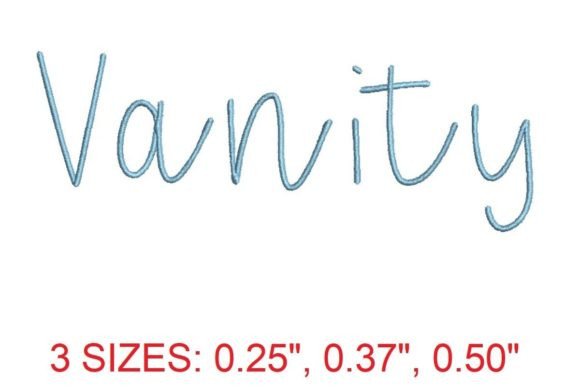
Vanity Embroidery Font Review
As an embroidery designer and product reviewer, I’ve evaluated countless machine embroidery designs over the years. When I came across the Vanity Embroidery Font, I was intrigued by its promise of elegance and allure. This font is designed for those who want to elevate their stitching projects with a touch of sophistication. But does it deliver in real-world use? Let’s dive into my hands-on evaluation.
The First Impression: Elegance Meets Allure
From the moment I opened the embroidery file, I noticed the refined structure of the Vanity Embroidery Font. The lettering has a smooth, flowing aesthetic that feels both modern and timeless. It’s not overly ornate, but it carries a subtle glamour that makes it stand out. The design seems to be tailored for projects where visual impact matters—think personalized gifts, boutique merchandise, or high-end handmade products.
The layout is clean, with balanced spacing between letters and a consistent stroke width. This makes it ideal for applications where clarity and readability are key. Whether you’re working on a sweatshirt embroidery or a tote bag design, the font maintains its character without looking cluttered.
Real-World Use: Where Does It Shine?
I tested the Vanity Embroidery Font on several projects to see how it performed in different contexts. On a custom apparel like a cotton t-shirt, it looked sharp and professional. The satin stitch detail added a polished finish, making the text appear as if it were part of the garment itself. For a personalized gift, such as a baby onesie or a holiday ornament, the font brought a sense of class that would appeal to discerning customers.
One project I worked on was a custom embroidered patch for a small business client. The Vanity Embroidery Font fit perfectly on the patch, giving it a premium look that matched the brand’s image. It also worked well on aprons and tea towels, where the elegance of the font complemented the practicality of the item.
Where to Be Cautious: Practical Considerations
While the Vanity Embroidery Font is visually appealing, there are situations where it may not perform as well. For instance, on thin fabric or stretchy material, the details can become less defined. I found that using a proper stabilizer helped maintain the integrity of the design, especially on delicate fabrics.
Small hoop sizes can also be a challenge. The font’s intricate details may require a larger hoop to ensure all elements are captured accurately. If you're working on a curved surface like a cap or a hat, you’ll need to adjust the design accordingly to avoid distortion.
Another consideration is thread color contrast. The font works best on light backgrounds, where the stitches pop. On dark fabrics, it may blend in more than expected, so testing with different thread colors is essential. I recommend creating a printable mockup to see how it looks before committing to a full project.
Impact on Visual Appeal and Customer Perception
The Vanity Embroidery Font adds a level of sophistication that can elevate the perceived value of a handmade product or small shop merchandise. Customers often associate elegant typography with quality, which can make your craft business stand out in a crowded market.
When it comes to brand consistency, the font’s style is cohesive and professional. It’s a great choice for businesses that want to maintain a polished image across their embroidery project line.
Designer Notes: Tips for Success
Before finalizing any project with the Vanity Embroidery Font, here are a few practical steps I recommend:
Final Thoughts: A Stylish Choice for Thoughtful Projects
The Vanity Embroidery Font is a strong contender for designers looking to add a touch of luxury to their embroidery file collection. It performs well in a variety of applications, from custom apparel to personalized gifts, and offers a level of refinement that can enhance the overall appeal of a finished product.
While it’s not without its limitations, particularly when used on challenging fabrics or in small hoop sizes, the font’s versatility and elegance make it a worthwhile addition to any embroidery designer’s toolkit. Whether you’re running a craft business or simply experimenting with new digital embroidery file options, the Vanity Embroidery Font is worth considering for its potential to elevate your work.